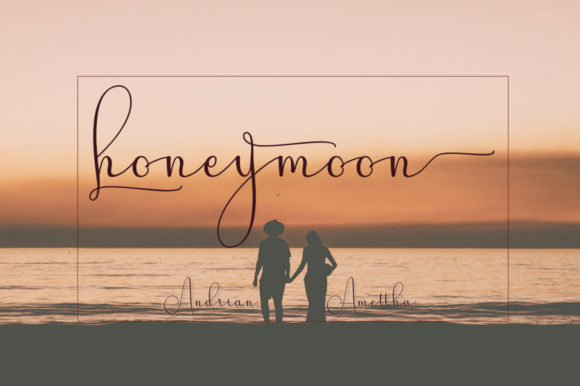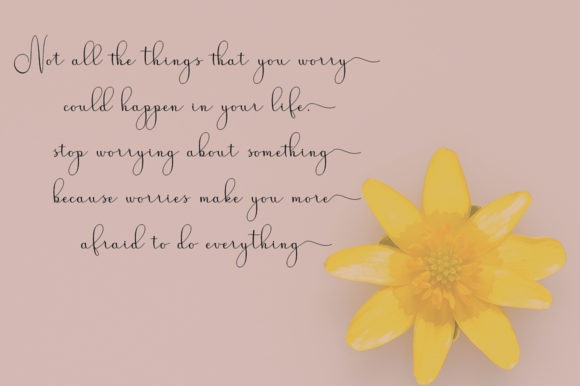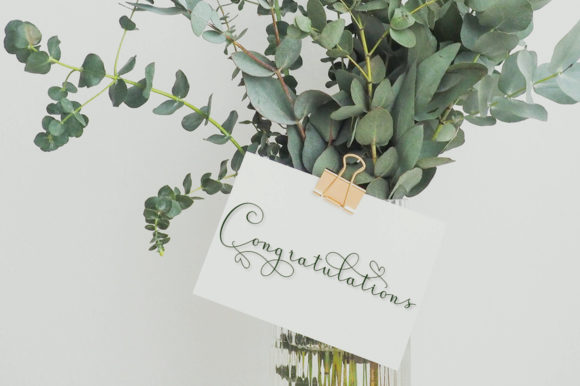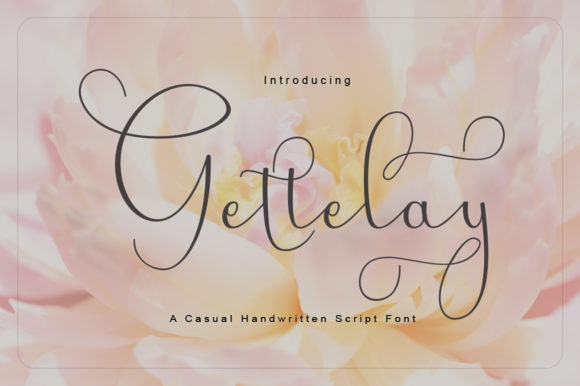
Introducing Gettelay Font: A Stunning Script Font for Elegant Designs
Gettelay Font is a beautiful script font that exudes charm and elegance, making it perfect for designers and crafters looking to add a touch of sophistication to their projects. This stunning font is a stylish homage to classic calligraphy, featuring a varying baseline, smooth lines, gorgeous glyphs, and stunning alternates.
What Makes Gettelay Font Special?
Gettelay Font is not just another script font. It’s a carefully crafted typeface that boasts a range of features that set it apart from others. Here are some of the key characteristics that make Gettelay Font special:
- Varying Baseline: Gettelay Font features a varying baseline that adds a touch of elegance and sophistication to your designs. The unique baseline creates a sense of movement and fluidity, making your text look more dynamic and interesting.
- Smooth Lines: The font features smooth lines that are carefully crafted to create a sense of continuity and flow. The smooth lines make Gettelay Font perfect for use in a range of design projects, from wedding invitations to branding and packaging.
- Gorgeous Glyphs: Gettelay Font comes with a range of gorgeous glyphs that add an extra touch of elegance to your designs. The glyphs are carefully crafted to create a sense of luxury and sophistication, making them perfect for high-end designs.
- Stunning Alternates: The font features stunning alternates that allow you to add some extra flair to your designs. The alternates are carefully crafted to create a sense of uniqueness and individuality, making your designs stand out from the crowd.
Special Features for Added Creativity
Gettelay Font comes with a range of special features that allow you to add some extra creativity to your designs. Some of the special features include:
- Alternate Glyphs: The font features a range of alternate glyphs that allow you to add some extra flair to your designs. The alternate glyphs are carefully crafted to create a sense of uniqueness and individuality, making your designs stand out from the crowd.
- Ligatures: Gettelay Font also features ligatures, which allow you to create beautiful connections between letters. The ligatures are carefully crafted to create a sense of flow and continuity, making your text look more elegant and sophisticated.
Gettelay Font is perfect for designers and crafters looking to add a touch of elegance and sophistication to their projects. The font is versatile and can be used in a range of design projects, including:
- Wedding Invitations: Gettelay Font is perfect for use in wedding invitations, adding a touch of elegance and sophistication to your designs.
- Branding and Packaging: The font is also perfect for use in branding and packaging, creating a sense of luxury and sophistication that will help your brand stand out from the crowd.
- Stationery: Gettelay Font is also perfect for use in stationery, adding a touch of elegance and sophistication to your designs.
Gettelay Font is a stunning script font that exudes charm and elegance. With its varying baseline, smooth lines, gorgeous glyphs, and stunning alternates, it’s perfect for designers and crafters looking to add a touch of sophistication to their projects. The font’s PUA encoding and special features, including alternate glyphs and ligatures, make it easy to use and customize. Whether you’re looking to create elegant wedding invitations, luxury branding, or sophisticated stationery, Gettelay Font is the perfect choice.